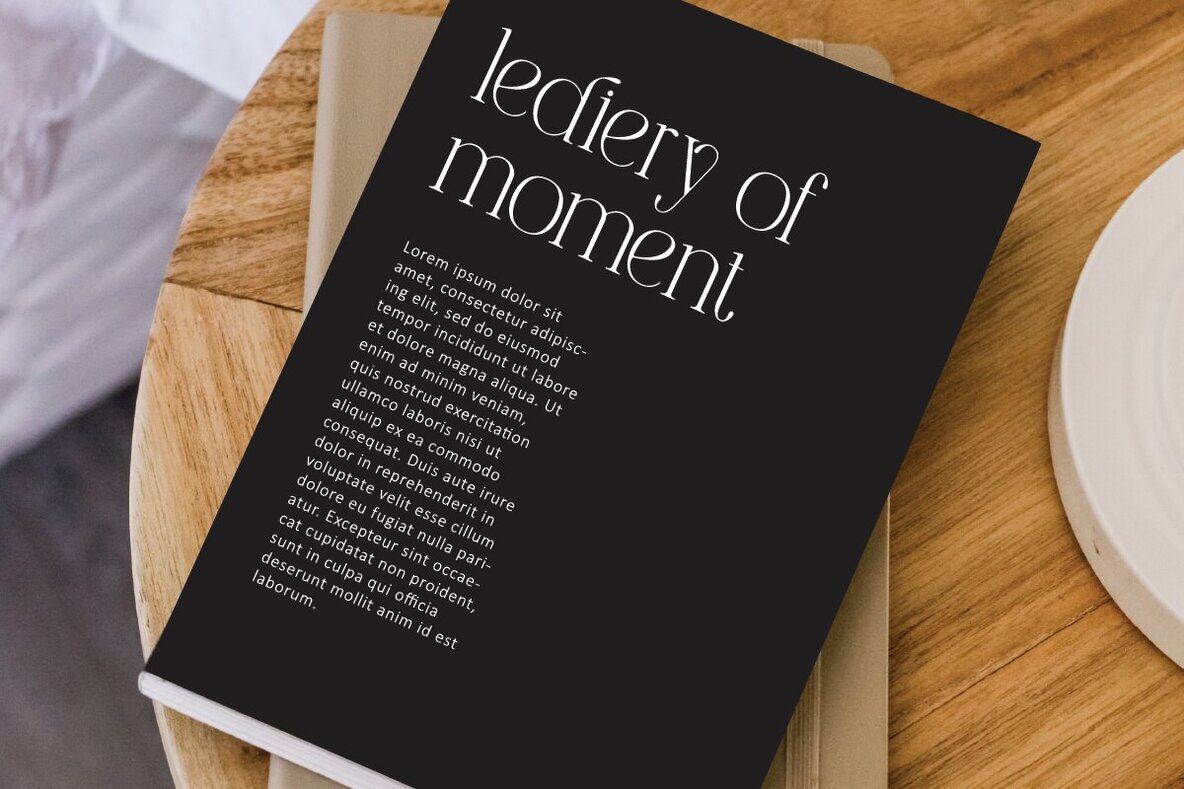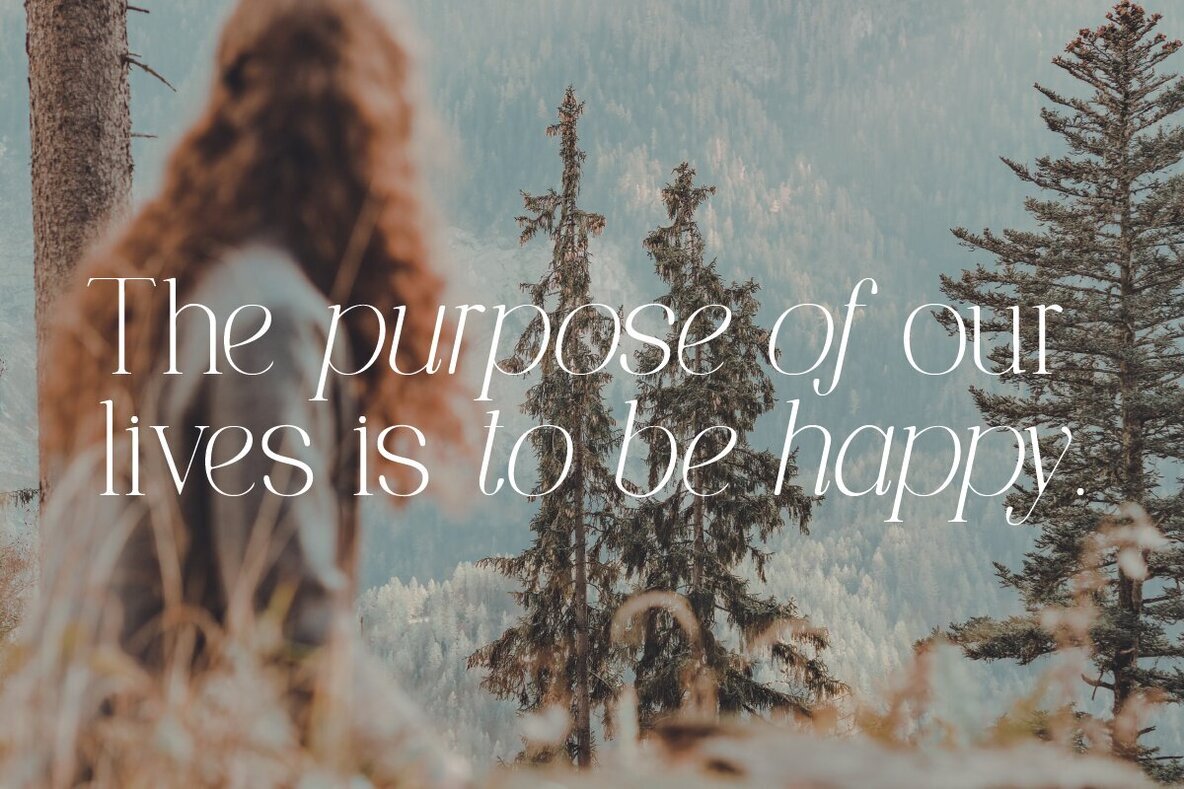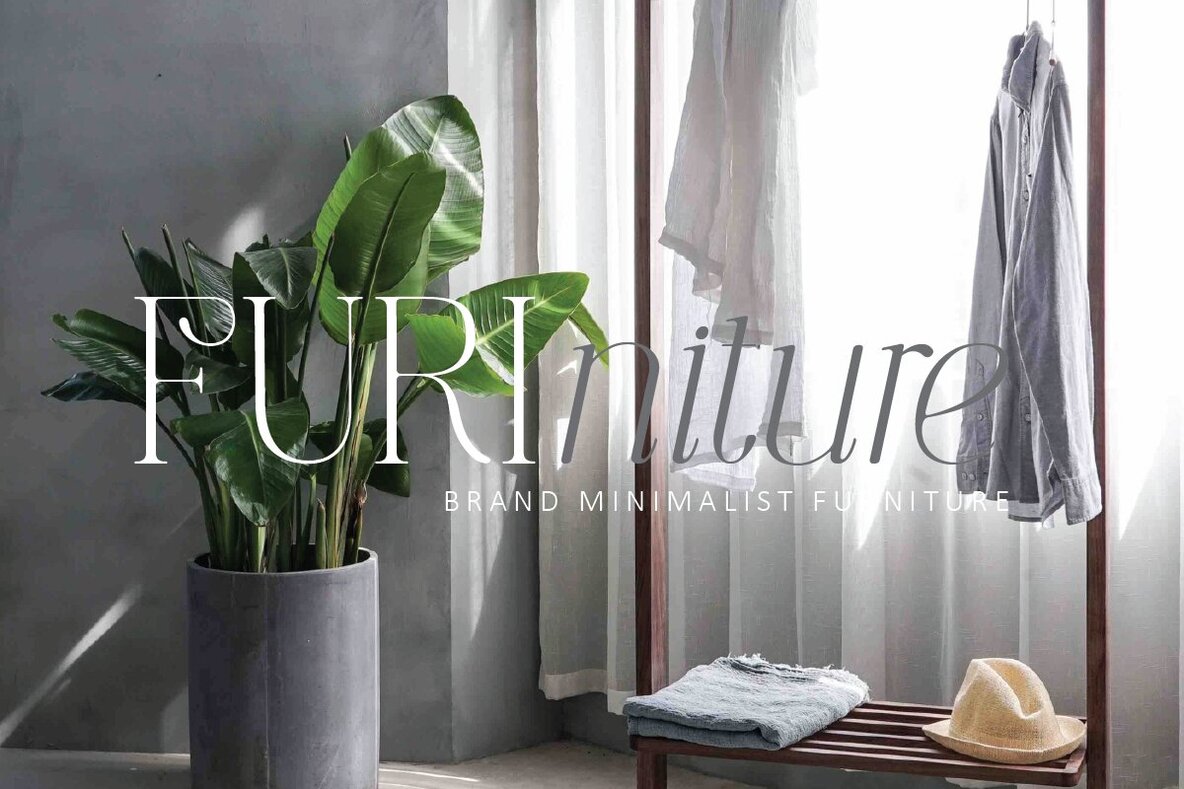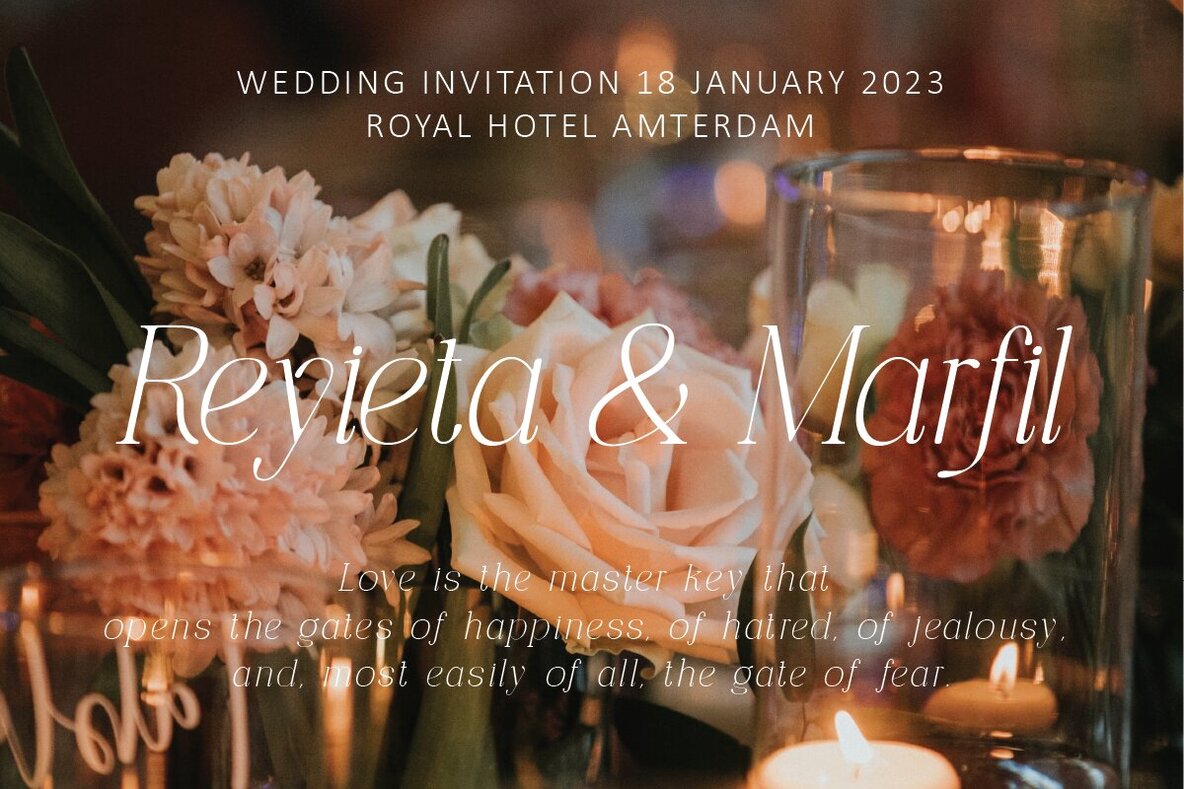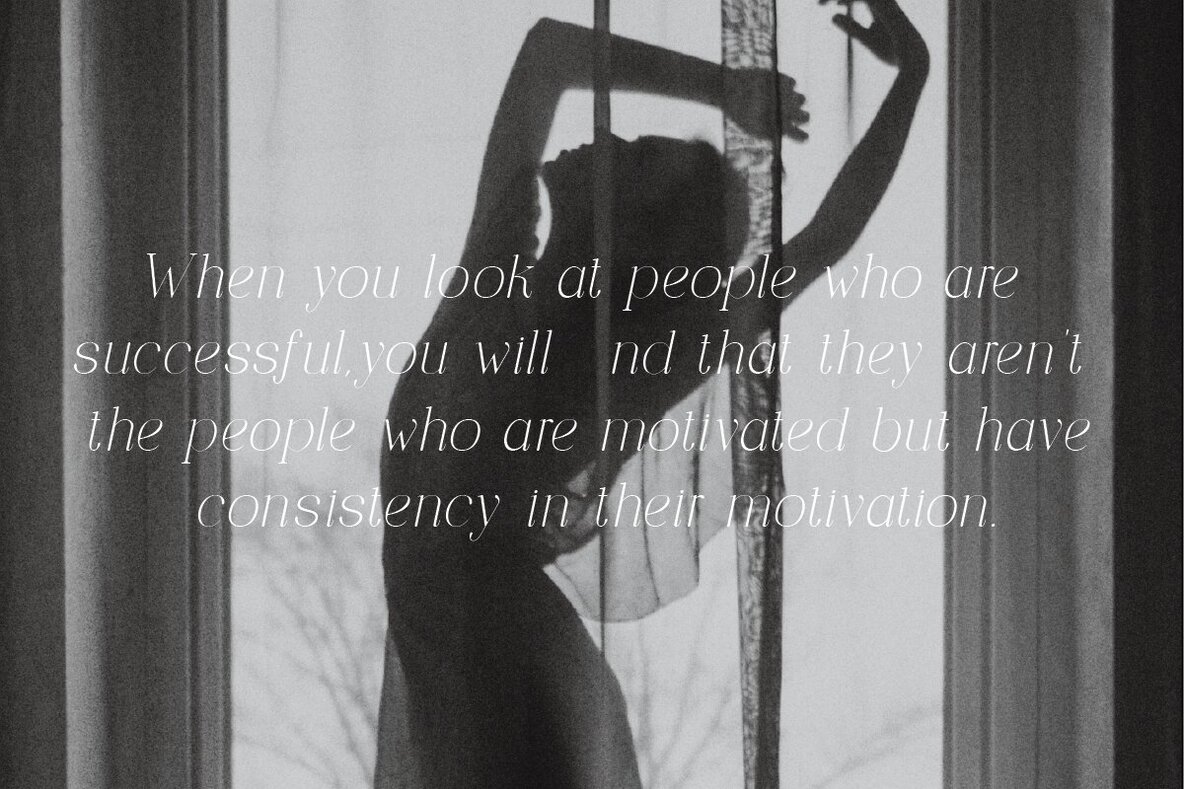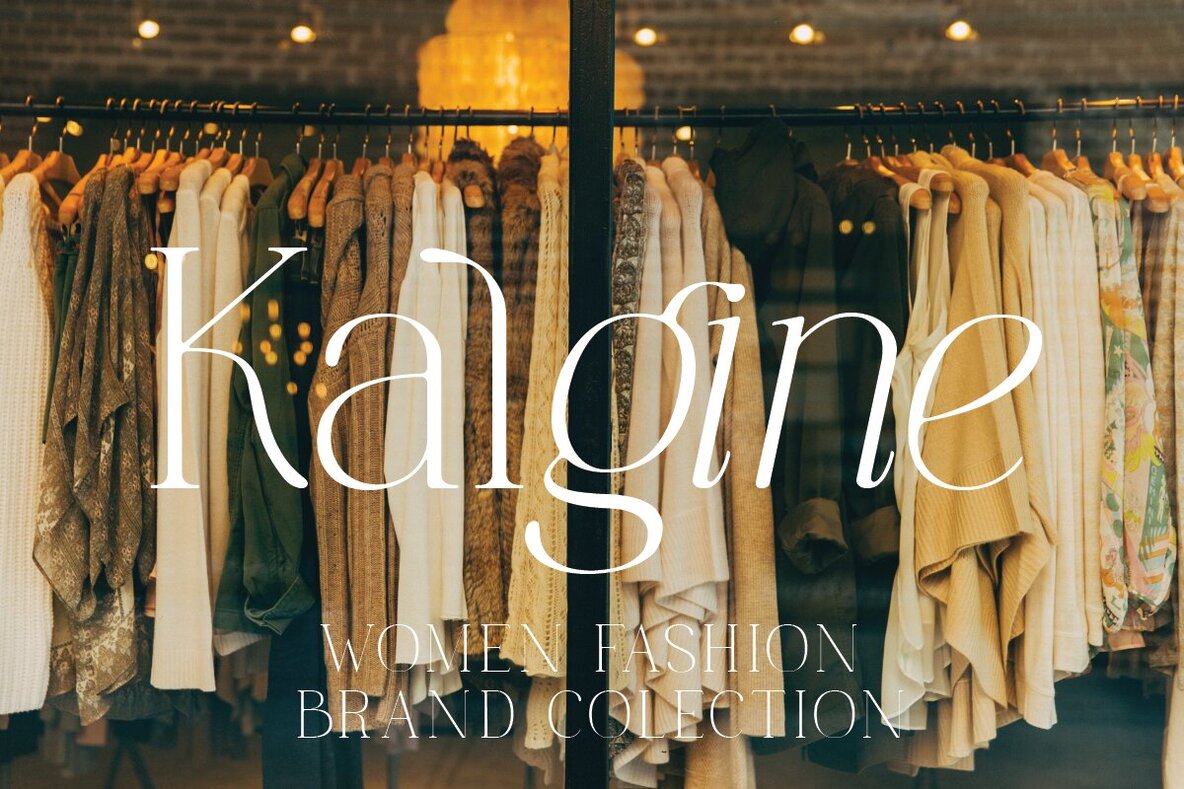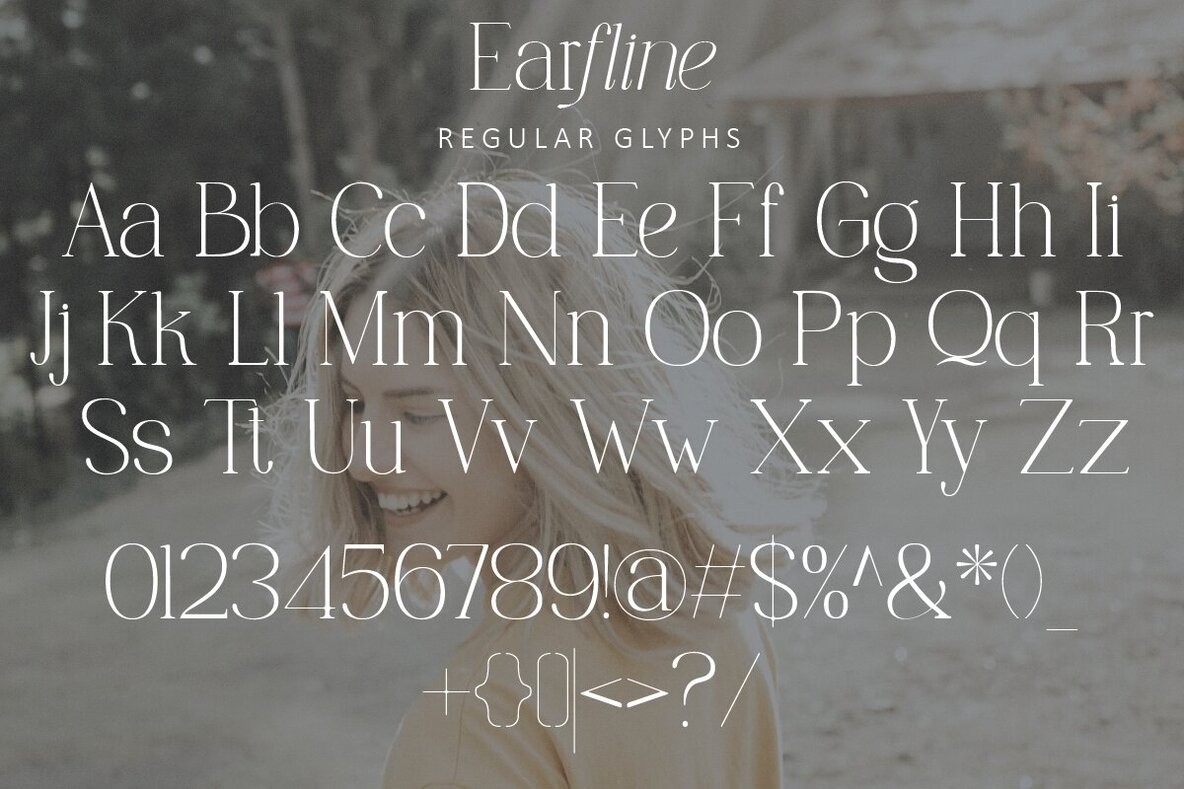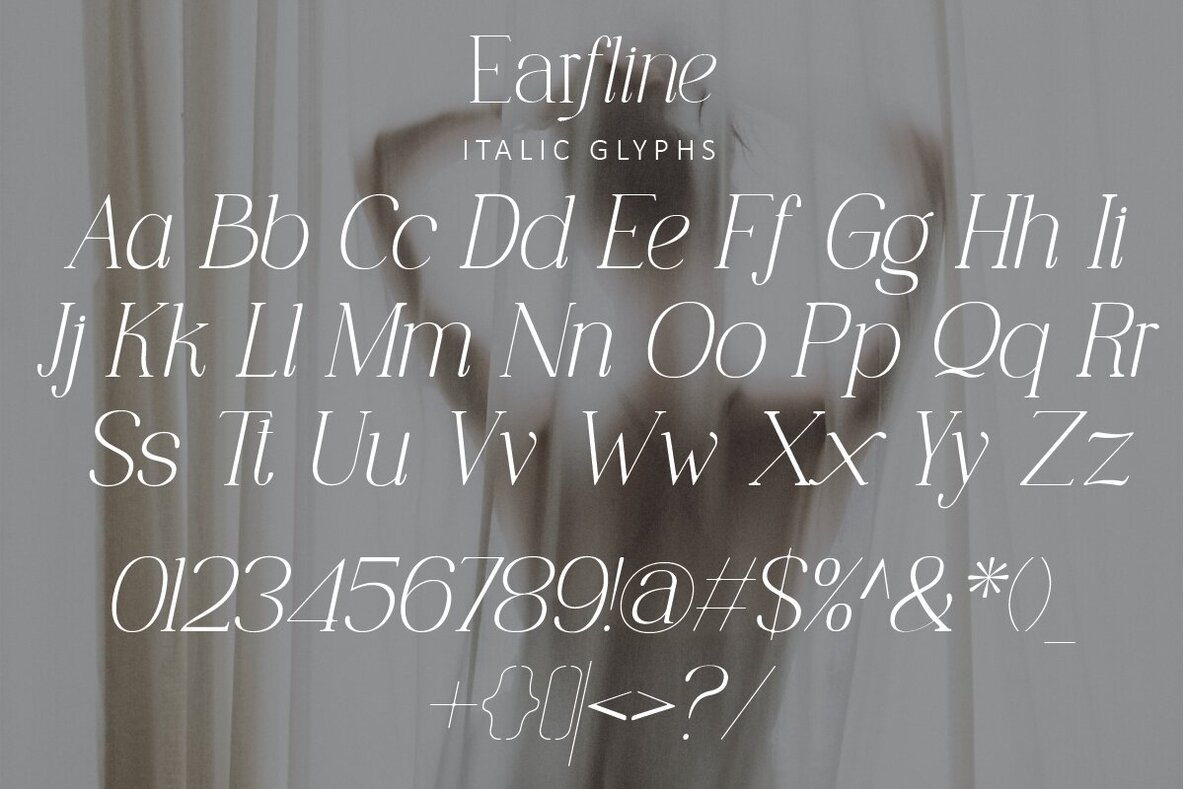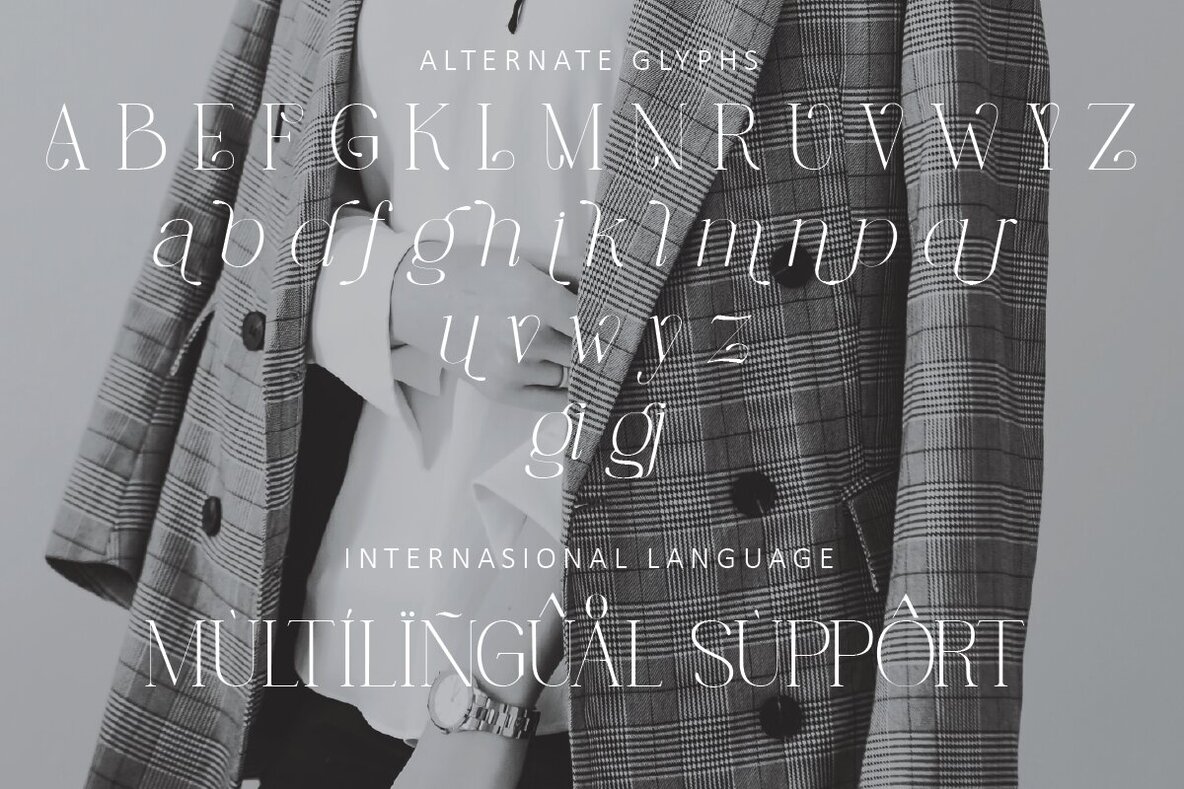
Earfline Font
Earfline Regular
Earfline italic
Earfline stands as a contemporary serif font that offers a unique blend of elegance and functionality. Ideal for both editorial projects and branding ventures, its versatility shines in diverse applications such as logo design, product packaging, and magazine headers. With its stylish alternates and special glyphs, Earfline seamlessly enhances a wide array of designs, effortlessly captivating the eye.Earfline: A Modern Serif With Distinct Alternates